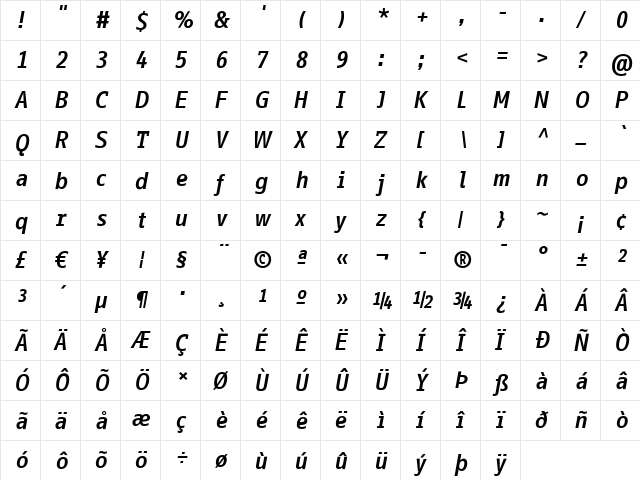
InfoOffice Bold Italic
Design Context for InfoOffice Typeface
InfoOffice offers clean, dependable letterforms without strong stylistic allegiance, making it a practical choice for designers who need flexibility. The slanted form adds forward momentum and visual energy. Its bold stroke weight gives it real presence on the page.
Pro Tip: Use InfoOffice for emphasis, pull quotes, and subheadings where its slanted energy can add rhythm to the layout.